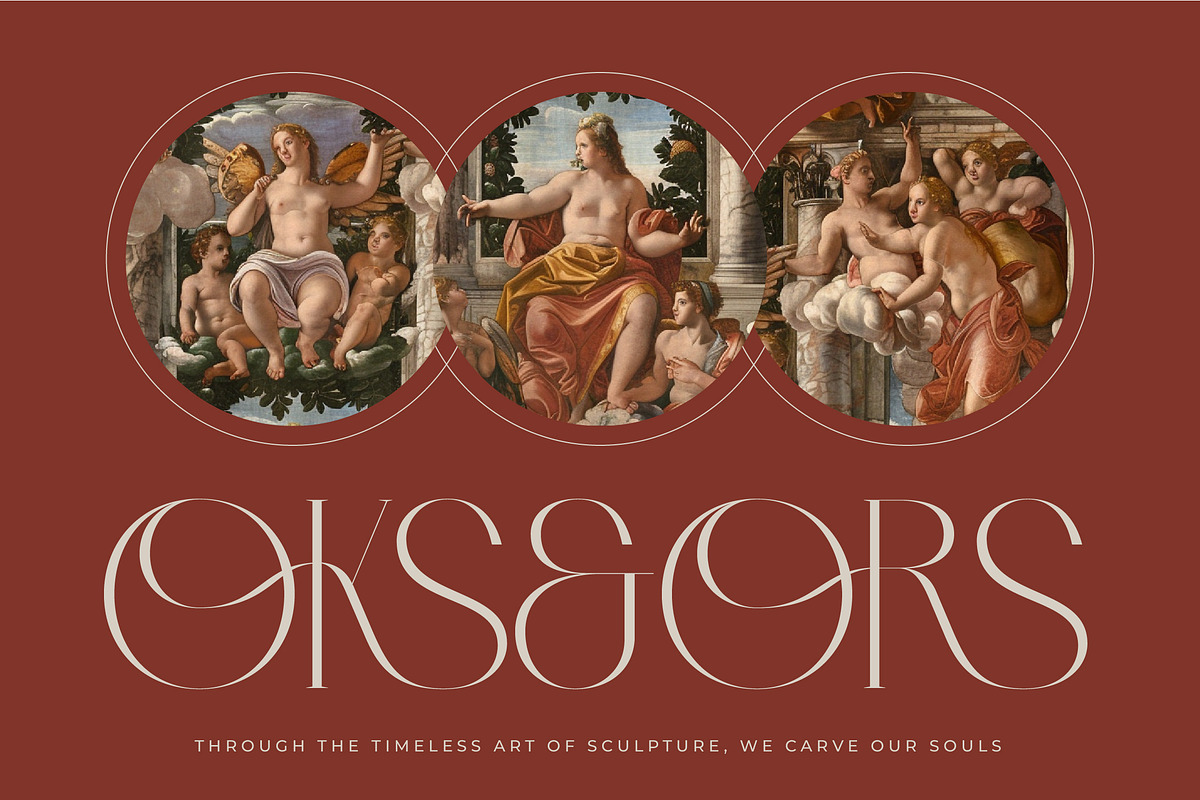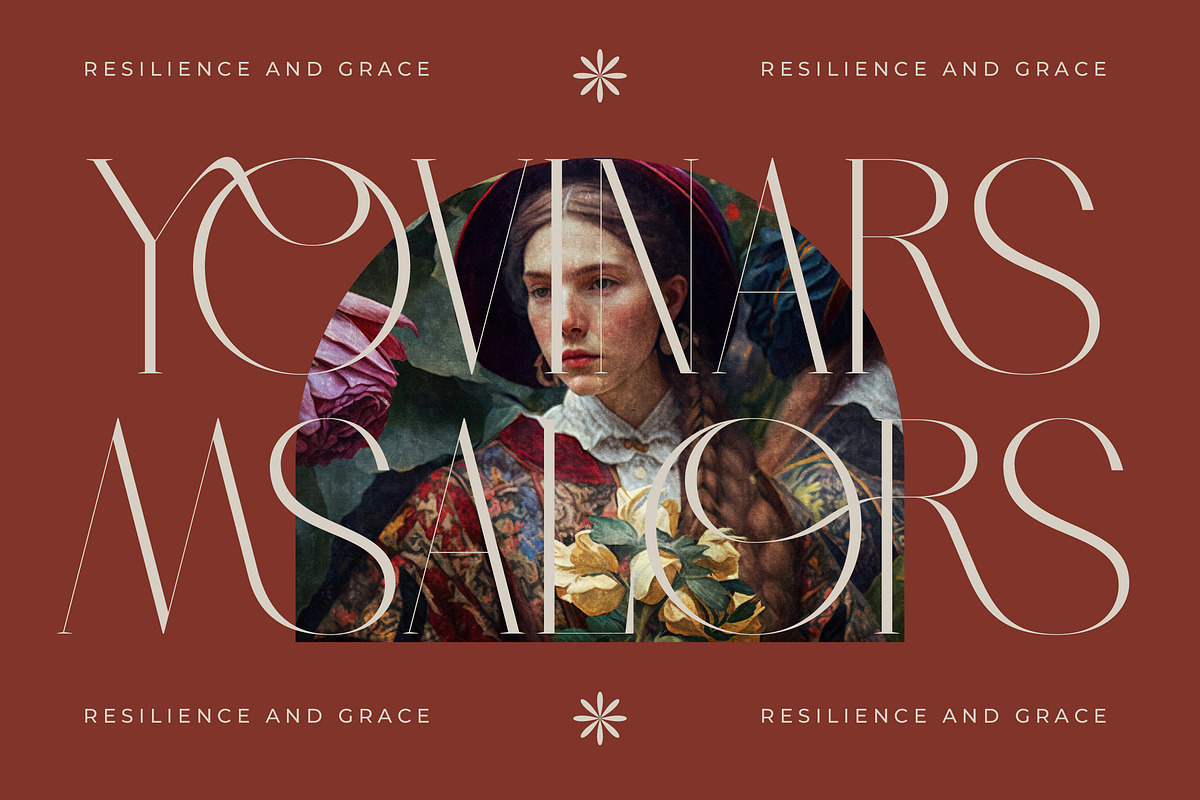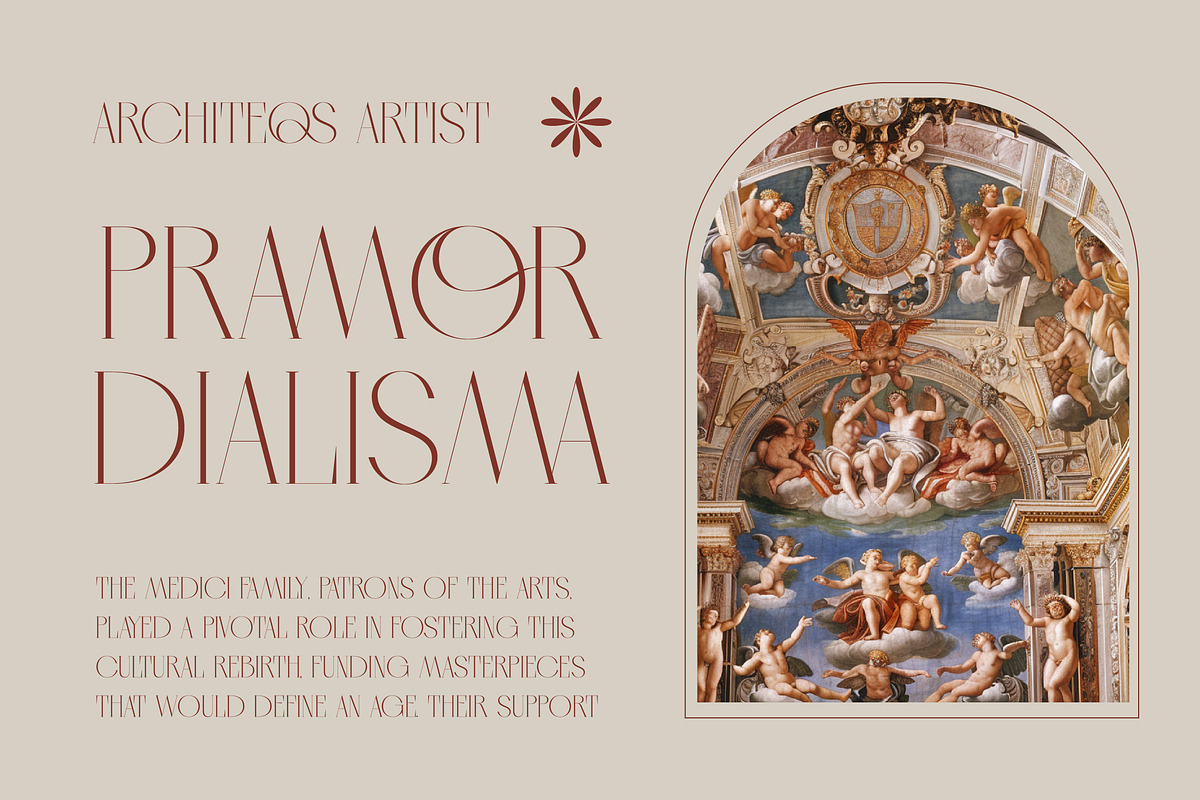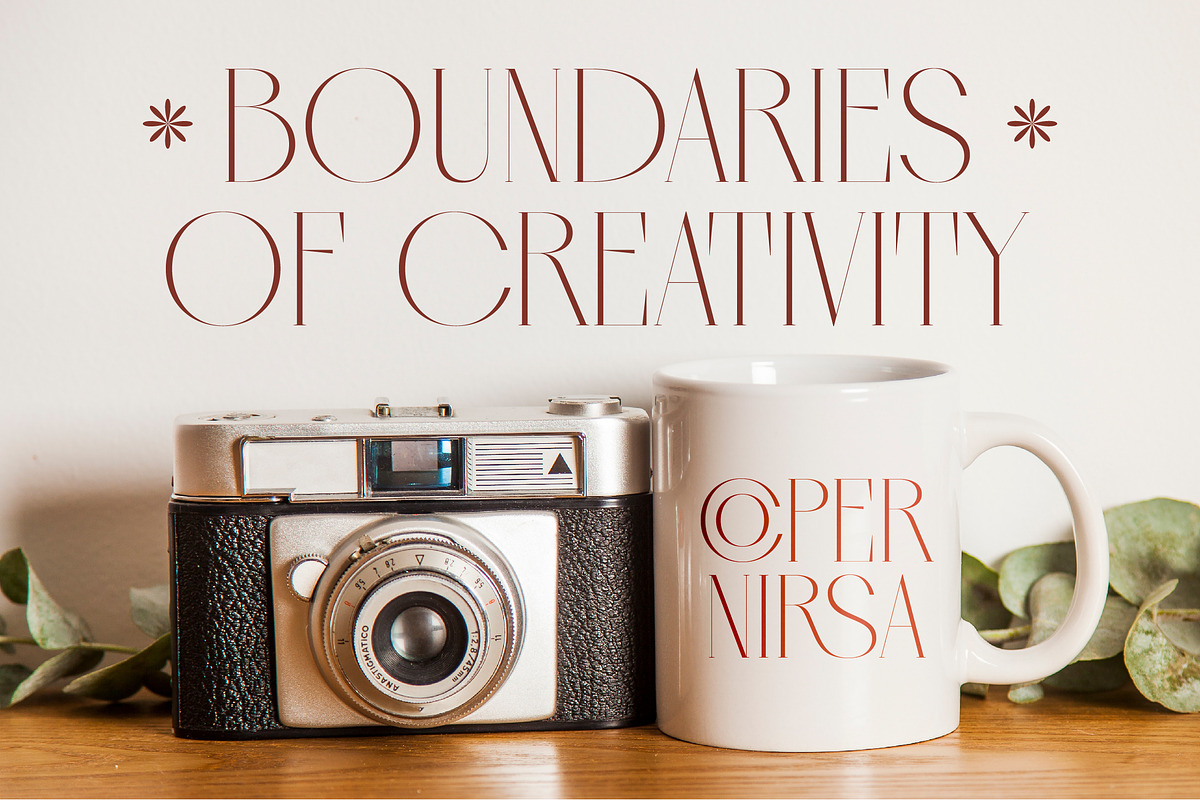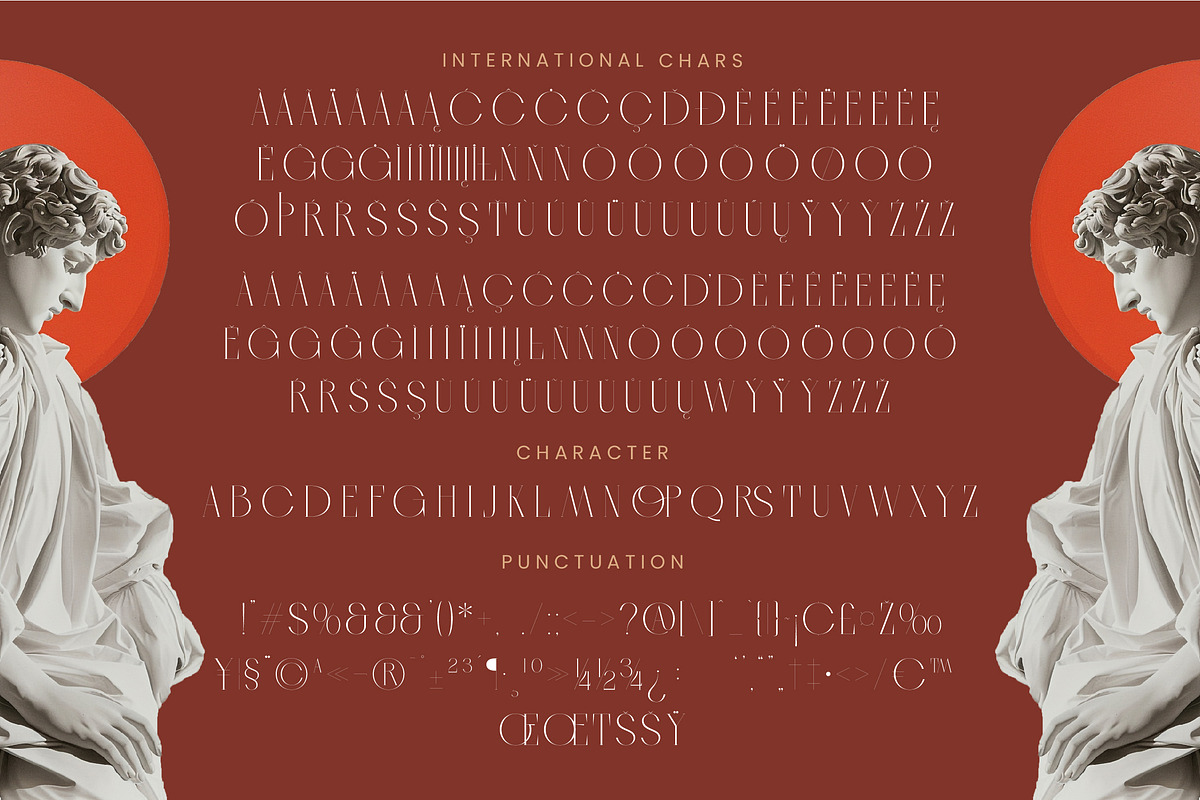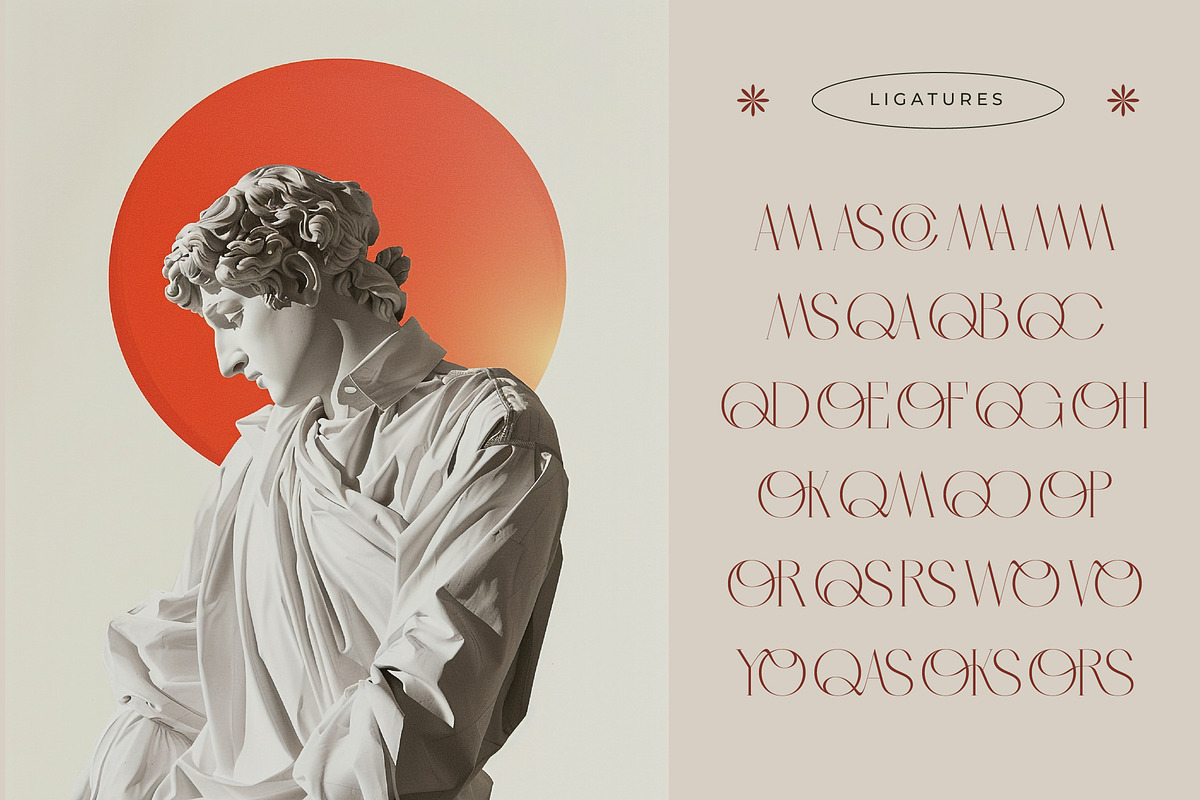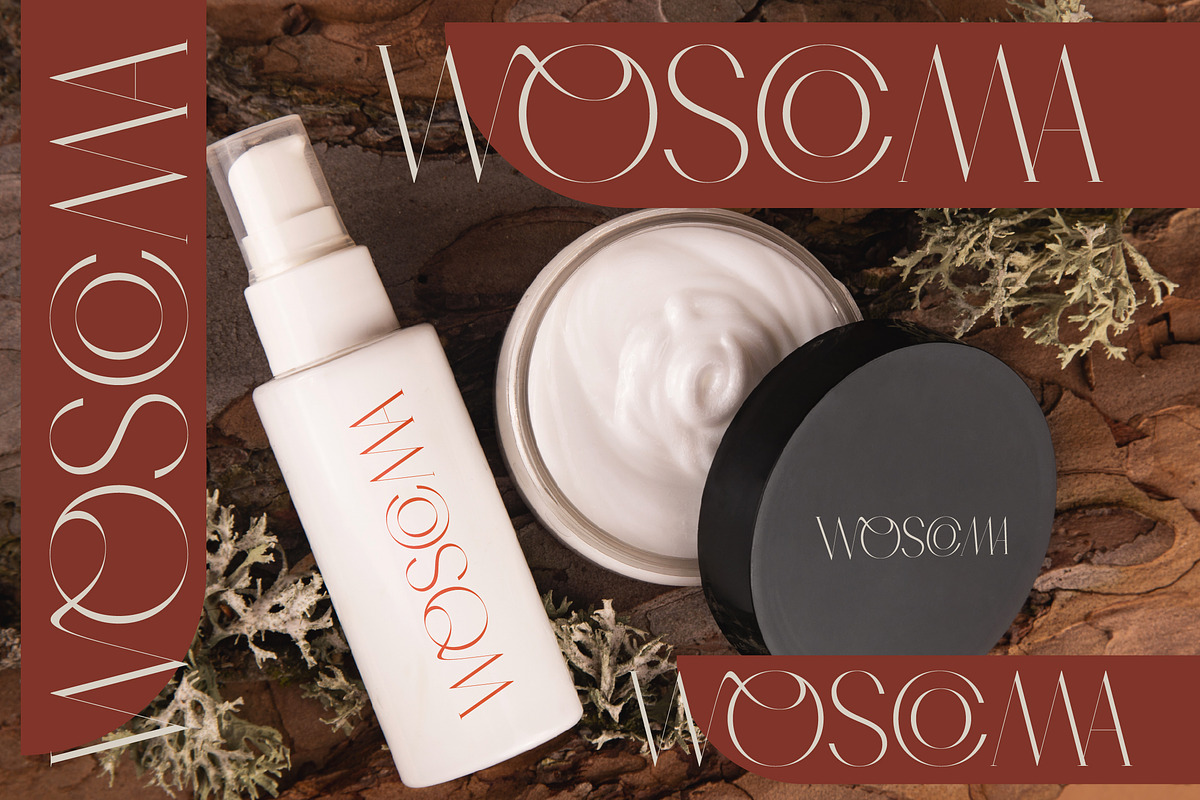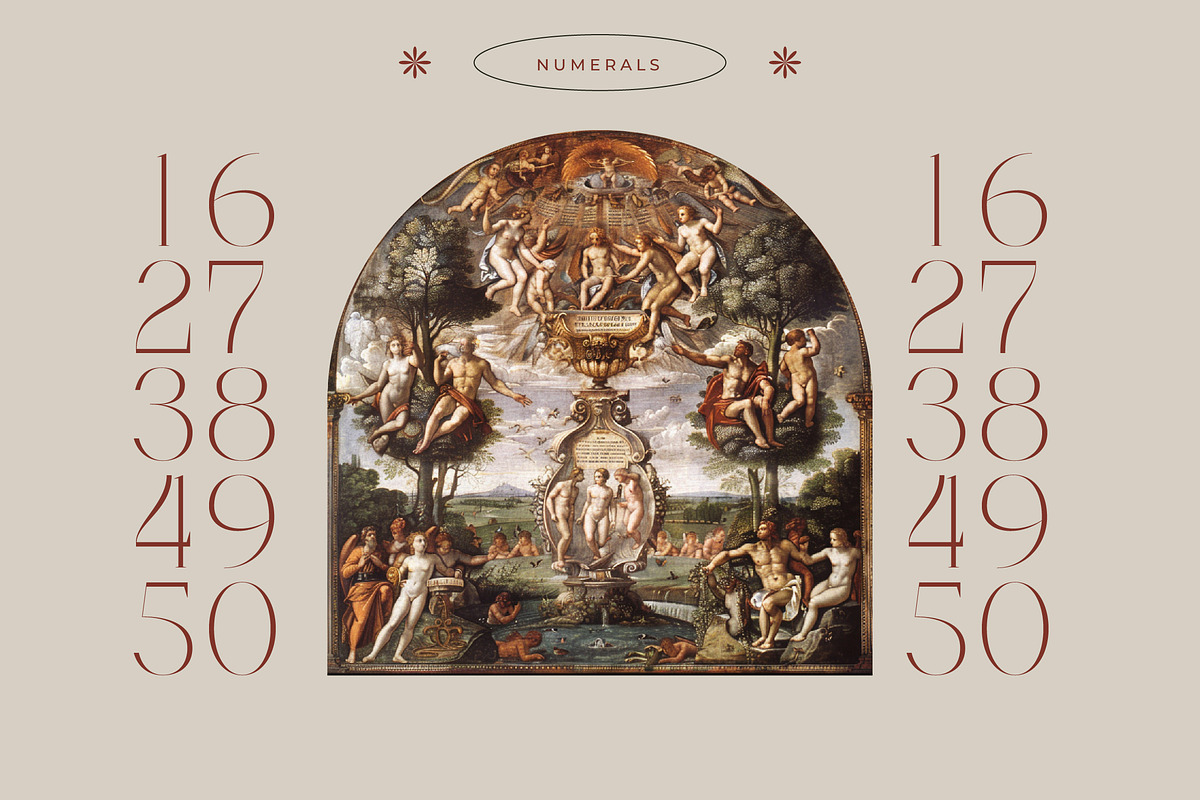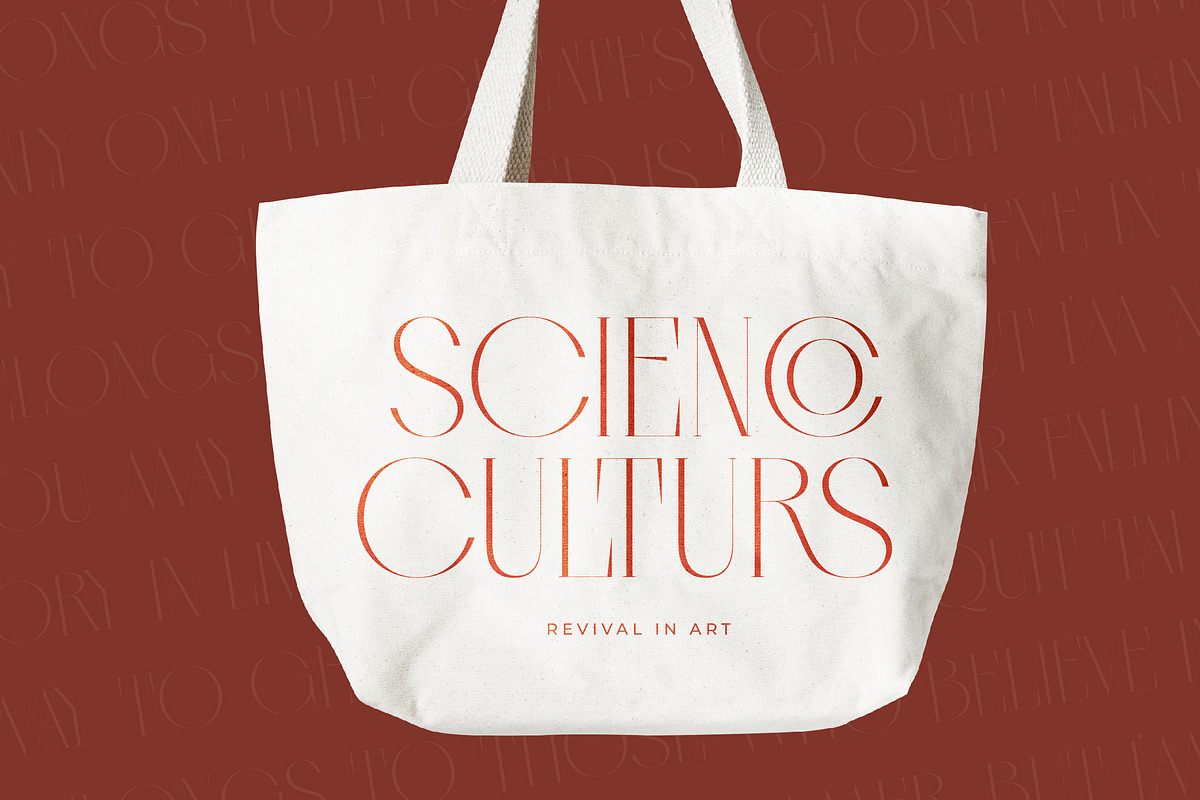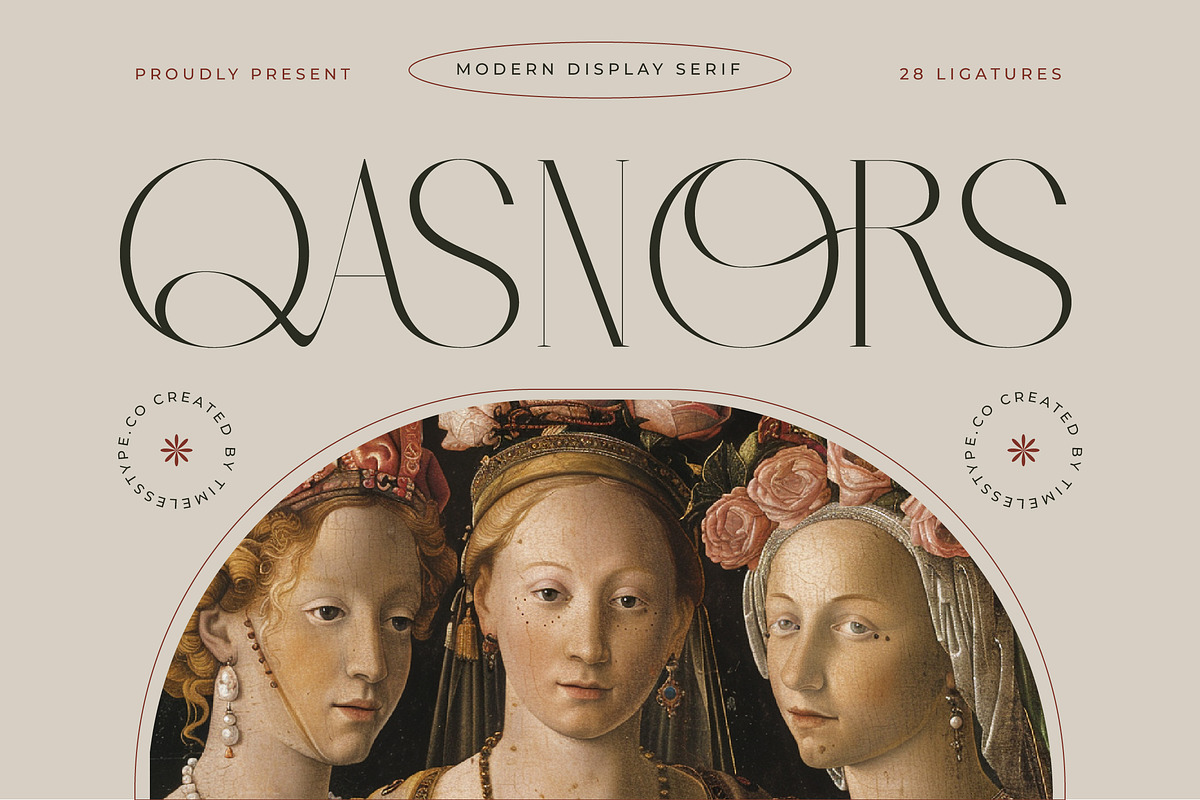
Qasnors Modern Display Serif
Qasnors is a breath of refined air, blending timeless classical aesthetics with a sharp, contemporary edge that commands attention instantly. This typeface represents the pinnacle of sophistication, offering designers a tool to craft visual narratives that are both historic and forward-thinking.
Inspired by the graceful lines of Renaissance art and the structural purity of classical architecture, this font captures a unique ethereal quality. It evokes a sense of walking through a quiet gallery where every curve and thin hairline stroke tells a story of meticulous craftsmanship.
With its distinct personality, Qasnors is a modern serif display choice designed to deliver maximum branding impact. It is a luxury typography solution that utilizes a high-contrast serif structure to create an editorial font that feels expensive, intentional, and profoundly graceful.
As the modern serif trend continues to dominate high-end visual culture, this typeface stands out by offering character-driven typography. It perfectly captures the essence of current editorial display fonts that prioritize unique letterforms and artistic expression over standard utility.
This versatile family is the perfect companion for logo design and upscale branding projects that require a touch of class. From high-fashion editorial spreads to artisanal packaging, or even delicate wedding invitations and fashion lookbooks, it adapts seamlessly to premium environments.
To ensure professional flexibility, the set includes a rich library of ligatures and unique alternates and swashes that allow for custom-feel compositions. The typeface is fully equipped with multilingual support and international characters, ensuring your message reaches a global audience without losing its stylistic integrity.
- Ligature 28 Alternate